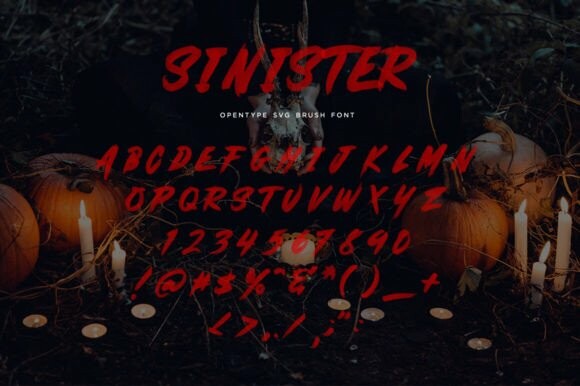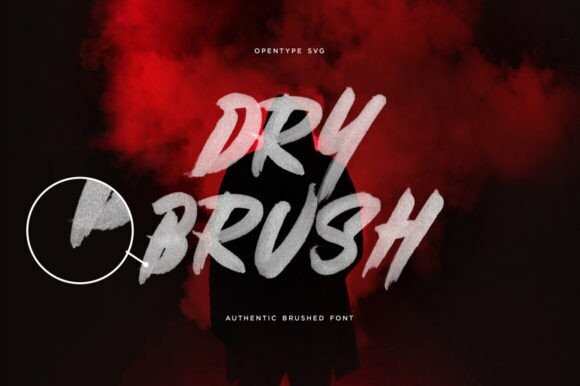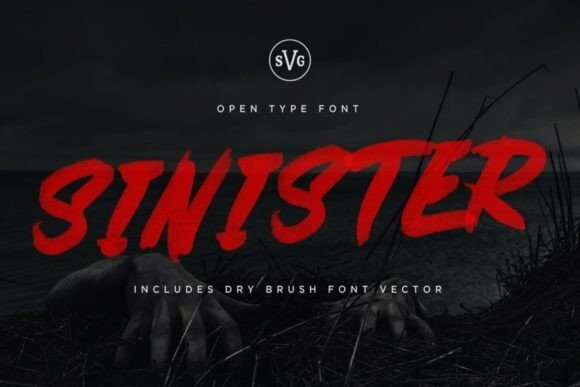
Sinister Brush Font
Designer: Surplus Type Co.
Sinister Brush Font is an all-caps hand-drawn brush font with a distinctly aggressive appearance. It features the natural texture & transparency created by the brush producing the most realistic look possible.